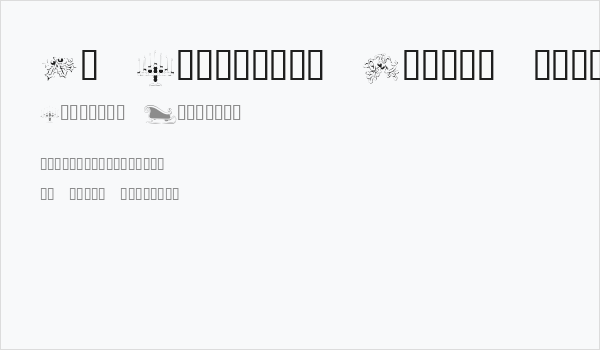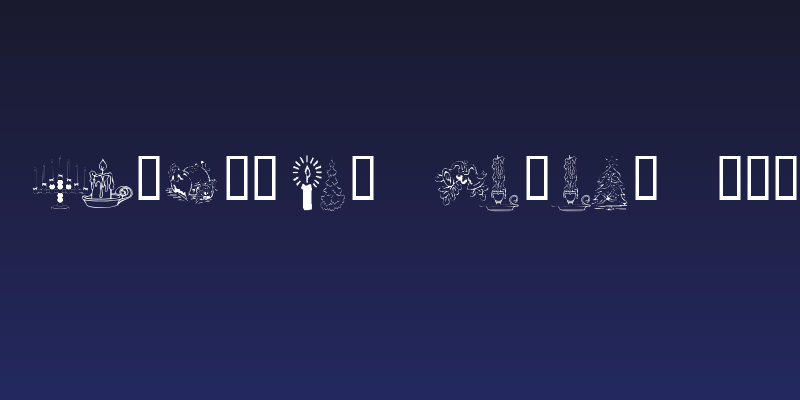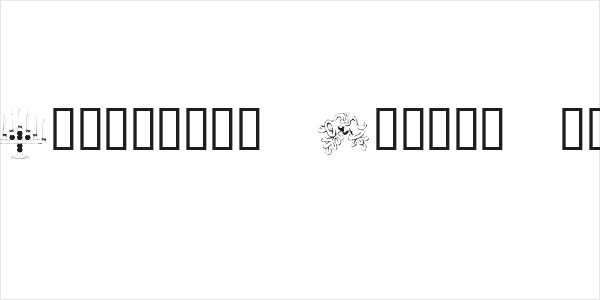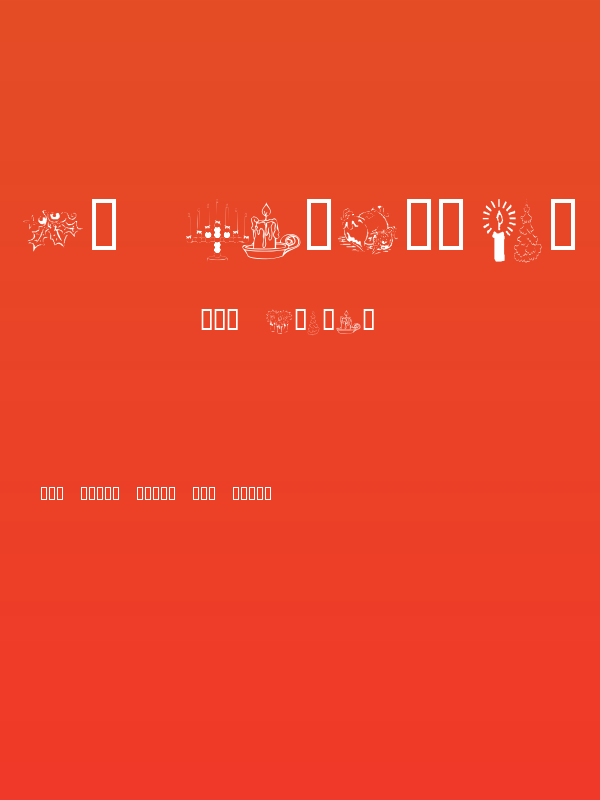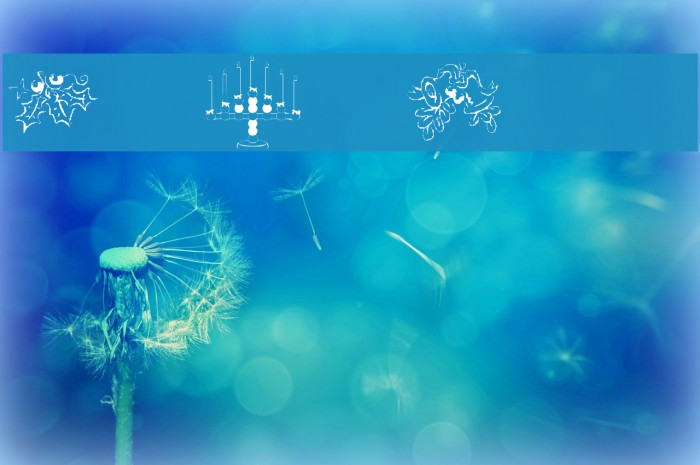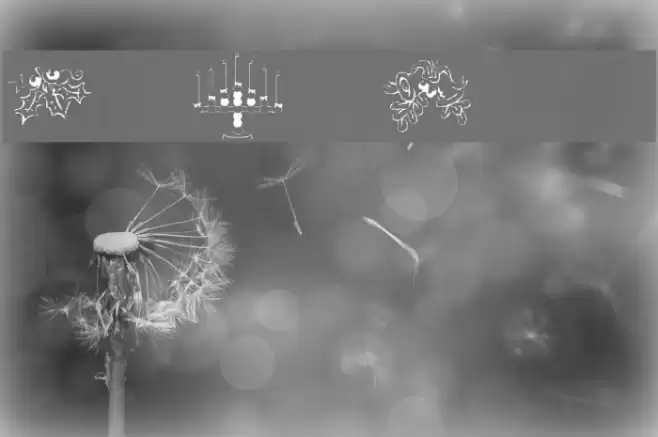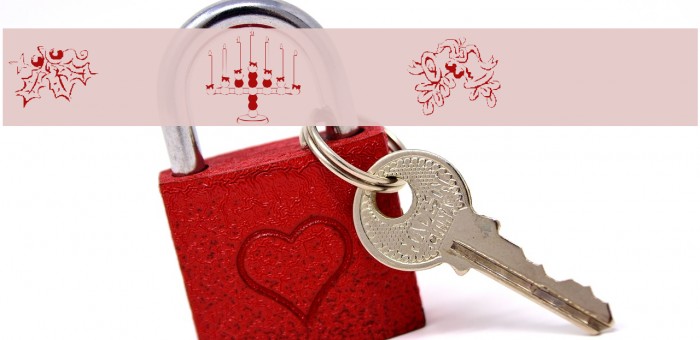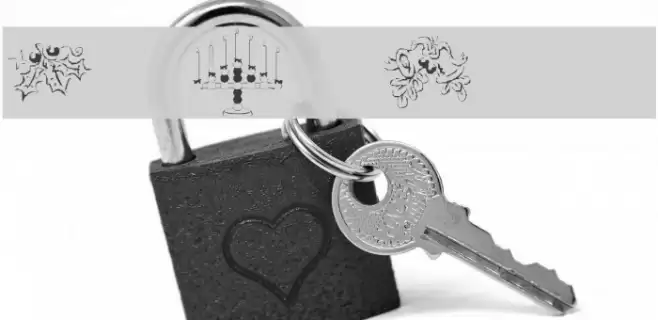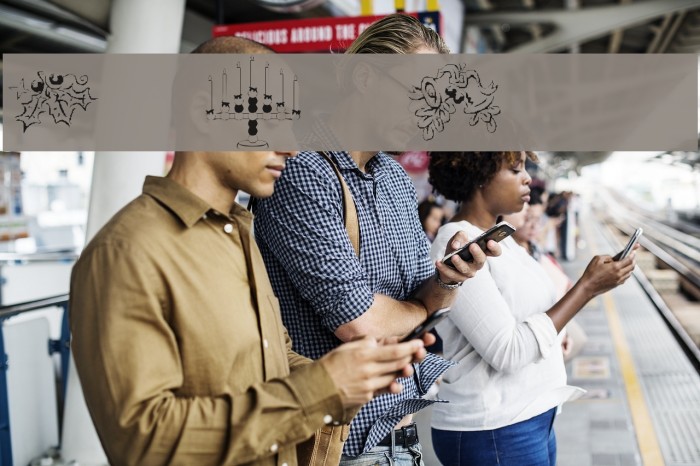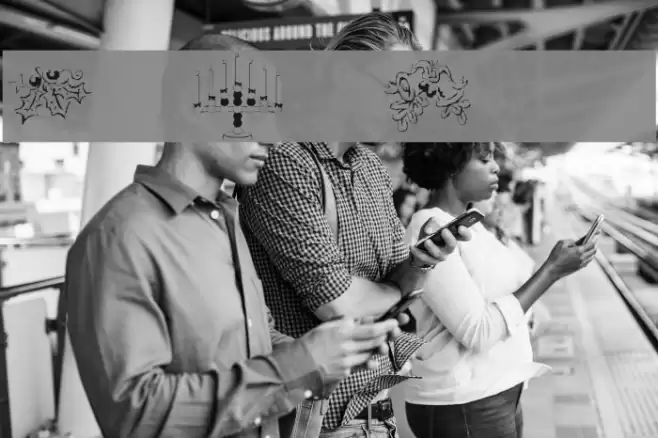
KR Christmas Jewels 2005 4 Font
KR Christmas Jewels 2005 4 Description
This is a decorative font featuring intricate Christmas-themed illustrations. Each character is represented by a unique holiday icon, such as candles, sleighs, and festive greenery. The design is highly detailed, capturing the essence of traditional holiday imagery. The font is not designed for standard text but rather for embellishing holiday-themed projects with its ornate and festive symbols.
| Use Case | Logos, Decorative elements |
| Proposed Projects | Ideal for holiday greeting cards, festive invitations, seasonal decorations, and Christmas-themed crafts. |